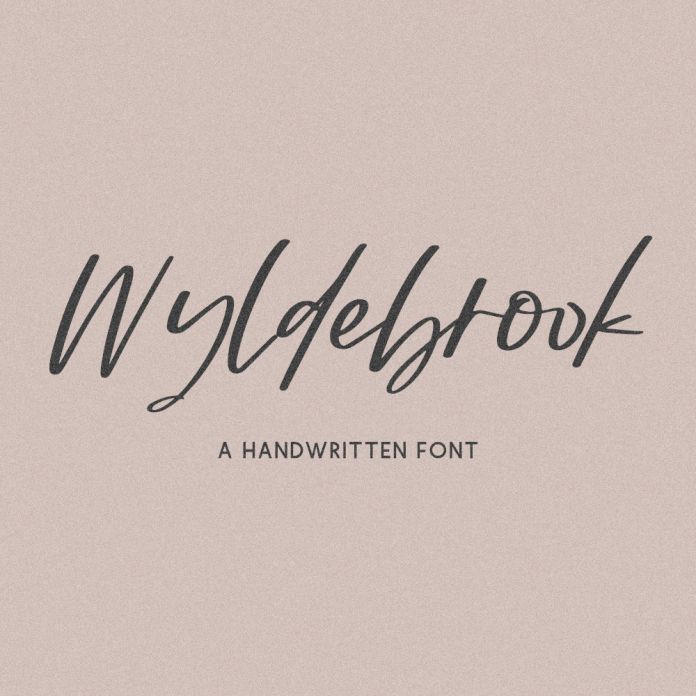
Wyldebrook Script Font
Introducing Wyldebrook Script, a modern, edgy handwriting font. Wyldebrook is best for: - logos + branding - website design + website accents, blog design - clean print design, like magazines + flyers - header elements that need handwritten touch - quote graphics for social media Wyldebrook includes: - full upper + lowercase characters - numbers + punctuation - Western European Language Support - 7 ligatures - ll, mm, nn, oo, rr, ss, tt - PUA-encoding